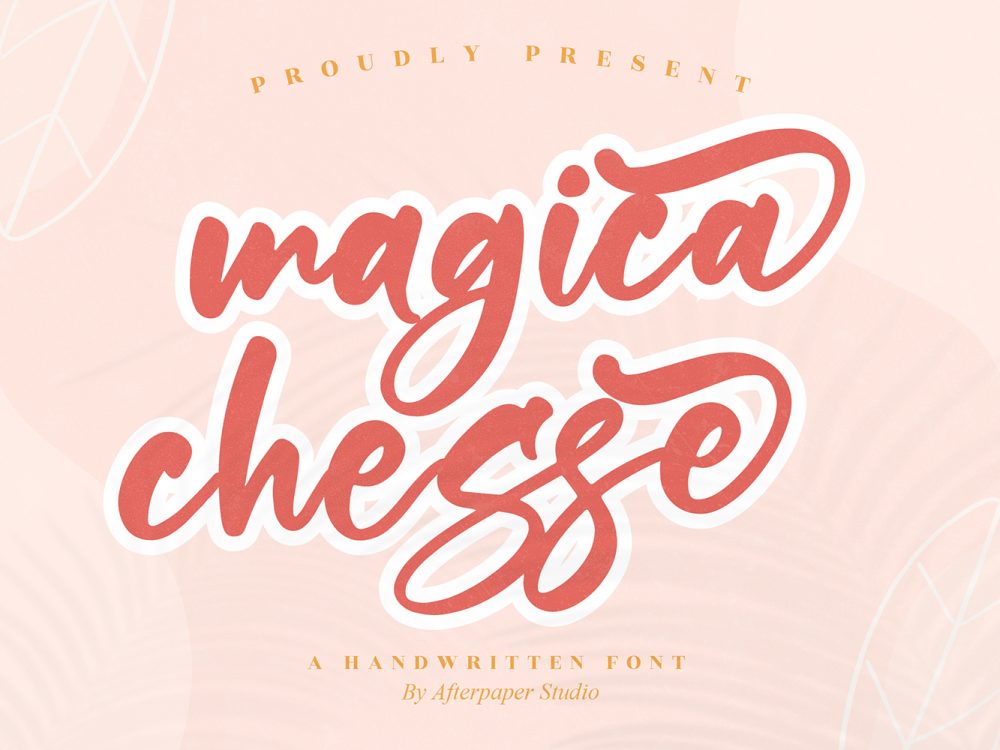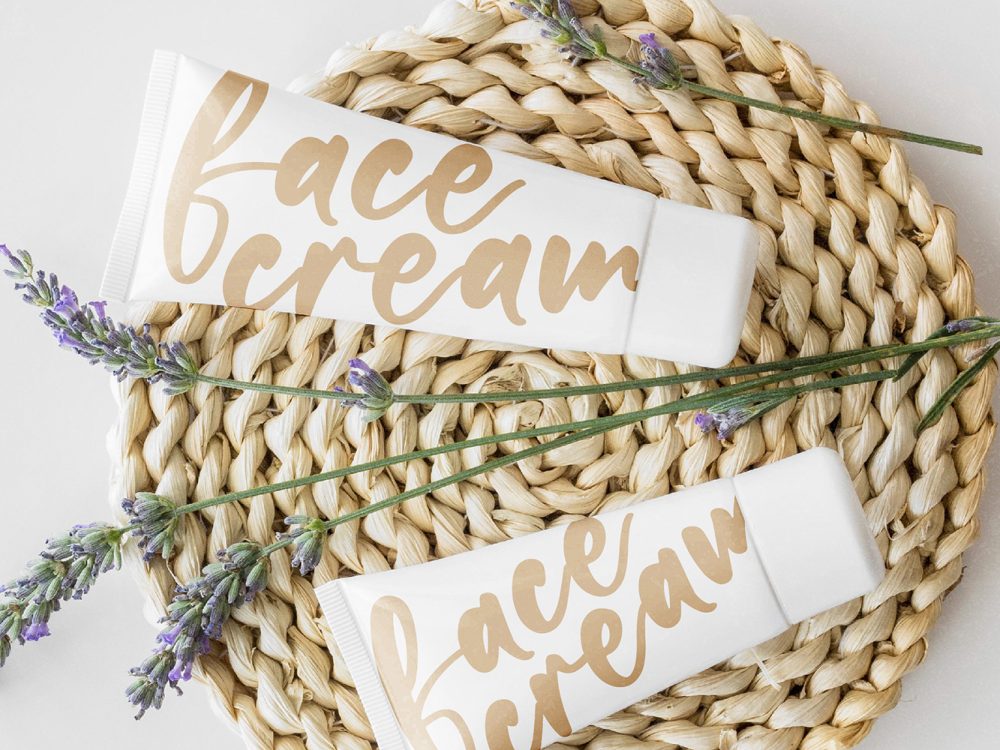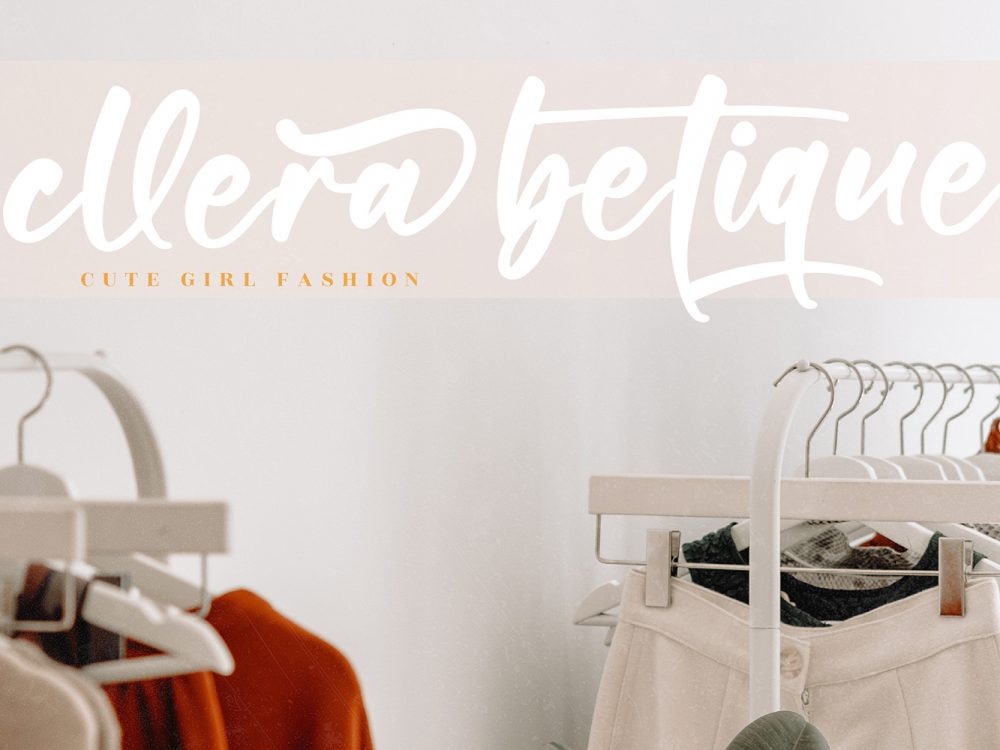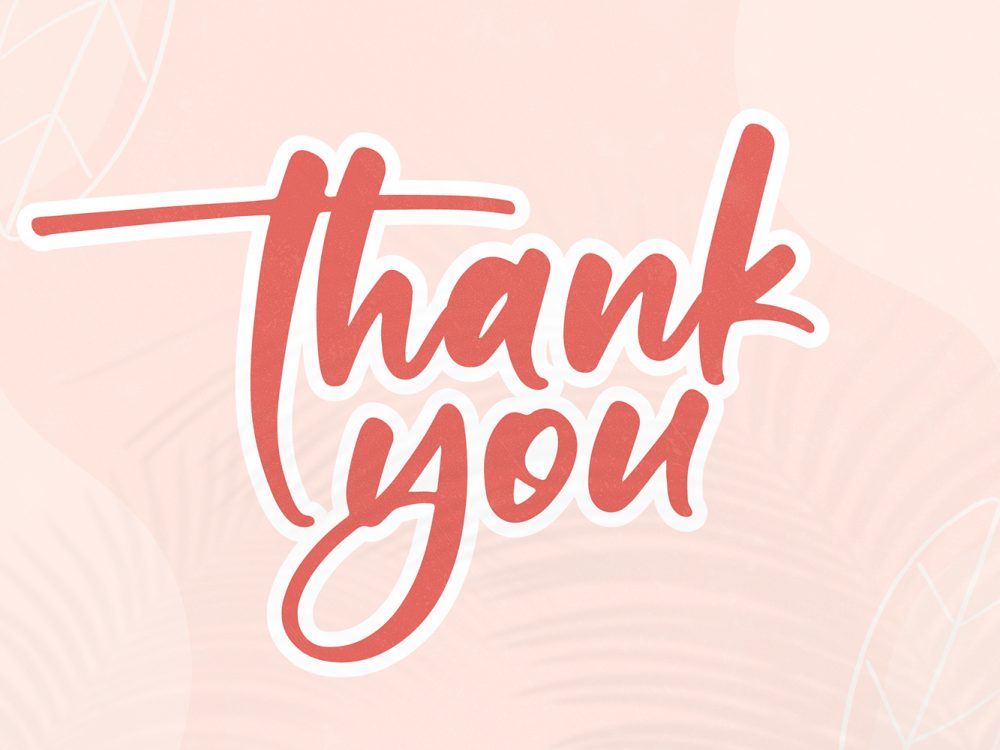
Magica Chesse Free Font
Magica Chesse Free Font is a beautiful handwritten font that simulates detailed brush writing and is very suitable for creating various design projects that require a scripted font. These can be posters, invitations, cards, branding, flyer prints, and more. If you wish to access more features and use them for commercial work please buy the full version.